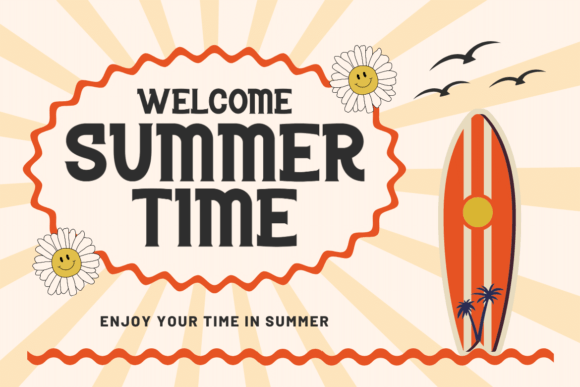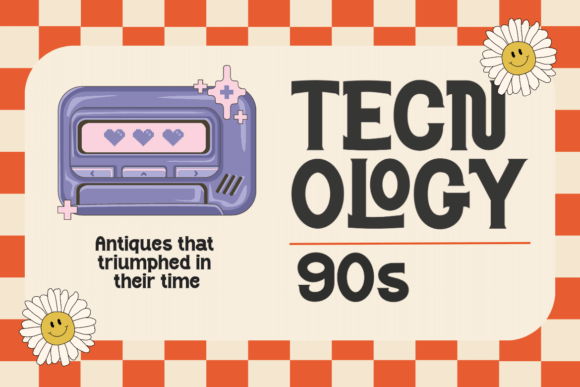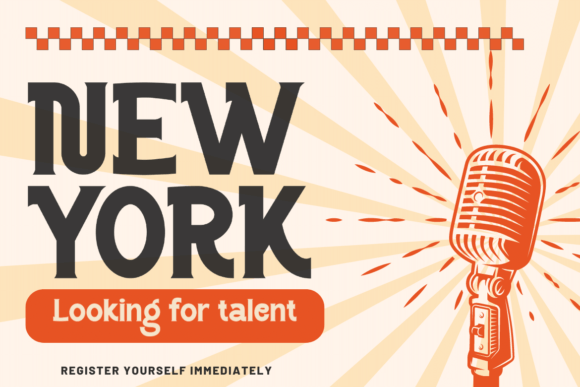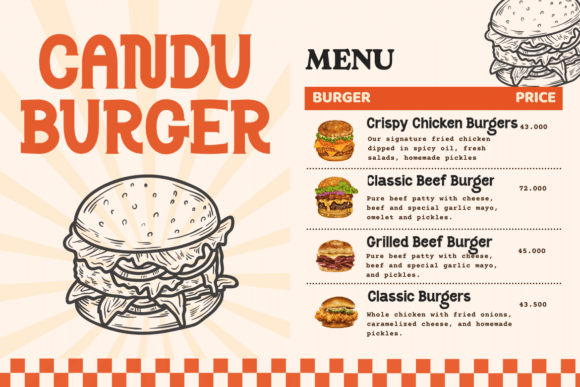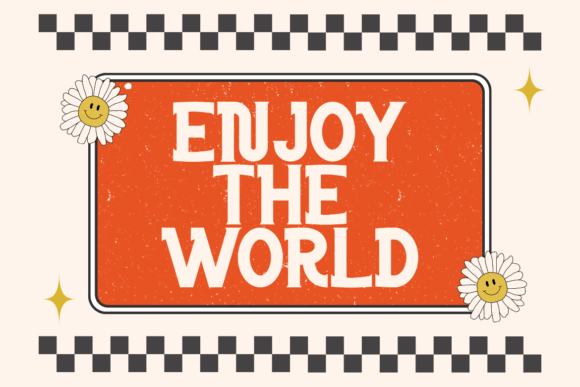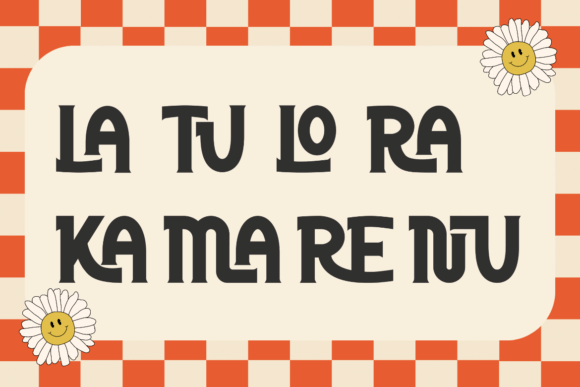
Introduction to Ranuka Font
Have you ever stumbled upon an old photograph that instantly transports you back in time? Perhaps it’s a faded Polaroid from a summer vacation or a hand-drawn postcard from a loved one. Whatever the memory, it’s likely that a specific font caught your eye, adding to the nostalgic charm of the image.
Fonts like the Ranuka Font have a way of conjuring up feelings of yesteryear, and designers are taking notice. This display font is more than just a pretty face – it’s a valuable design resource that can elevate any creative project with its unique, vintage aesthetic.
Key Features of Ranuka Font
- High-quality, unique design ideal for creative projects and designs requiring a sophisticated touch.
- Designed with a focus on readability, making it suitable for a wide range of applications, from headings to body text.
Honest Review: Ranuka Font
As a designer, I’m always on the lookout for high-quality design resources to enhance my creative projects. The Ranuka Font is one such resource that caught my attention, and I must say, it’s a great addition to my design arsenal.
What works well about the Ranuka Font is its versatility and high quality. The font is available for free download, which is a big plus for designers who are working on a tight budget. The font’s transparent background also makes it easy to customize and use in a variety of design scenarios. The font’s elegant and modern design makes it perfect for creative projects that require a touch of sophistication.
The Ranuka Font is available in a range of weights and styles, which makes it easy to find the perfect font to suit your design needs. Here are some of the key features that I like about the font:
- Available in multiple weights and styles
Overall, I’m impressed with the Ranuka Font and would definitely recommend it to fellow designers looking for a high-quality design resource for their creative projects.
The Ranuka Font is a versatile design resource that can be used in a variety of creative projects, including branding, packaging, and advertising. Its transparent background makes it easy to use in layered designs.
Tips for Getting the Most Out of Ranuka Font
To get the most out of the Ranuka Font, be sure to use it in conjunction with high-quality images and graphics. Also, experiment with different font sizes and styles to create a unique and eye-catching design.